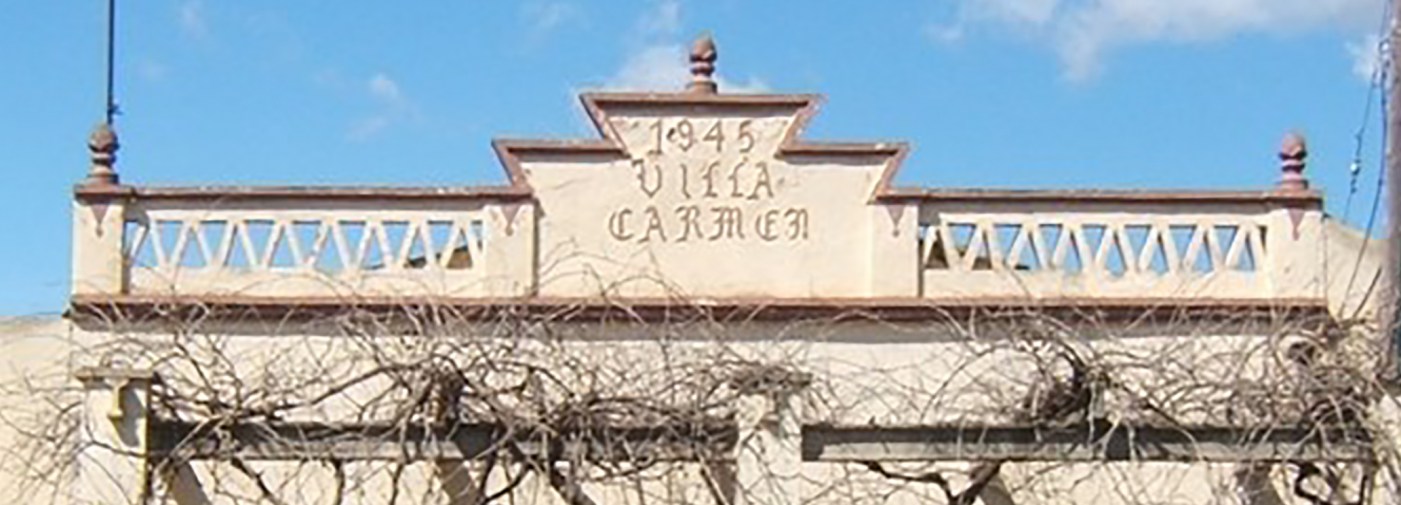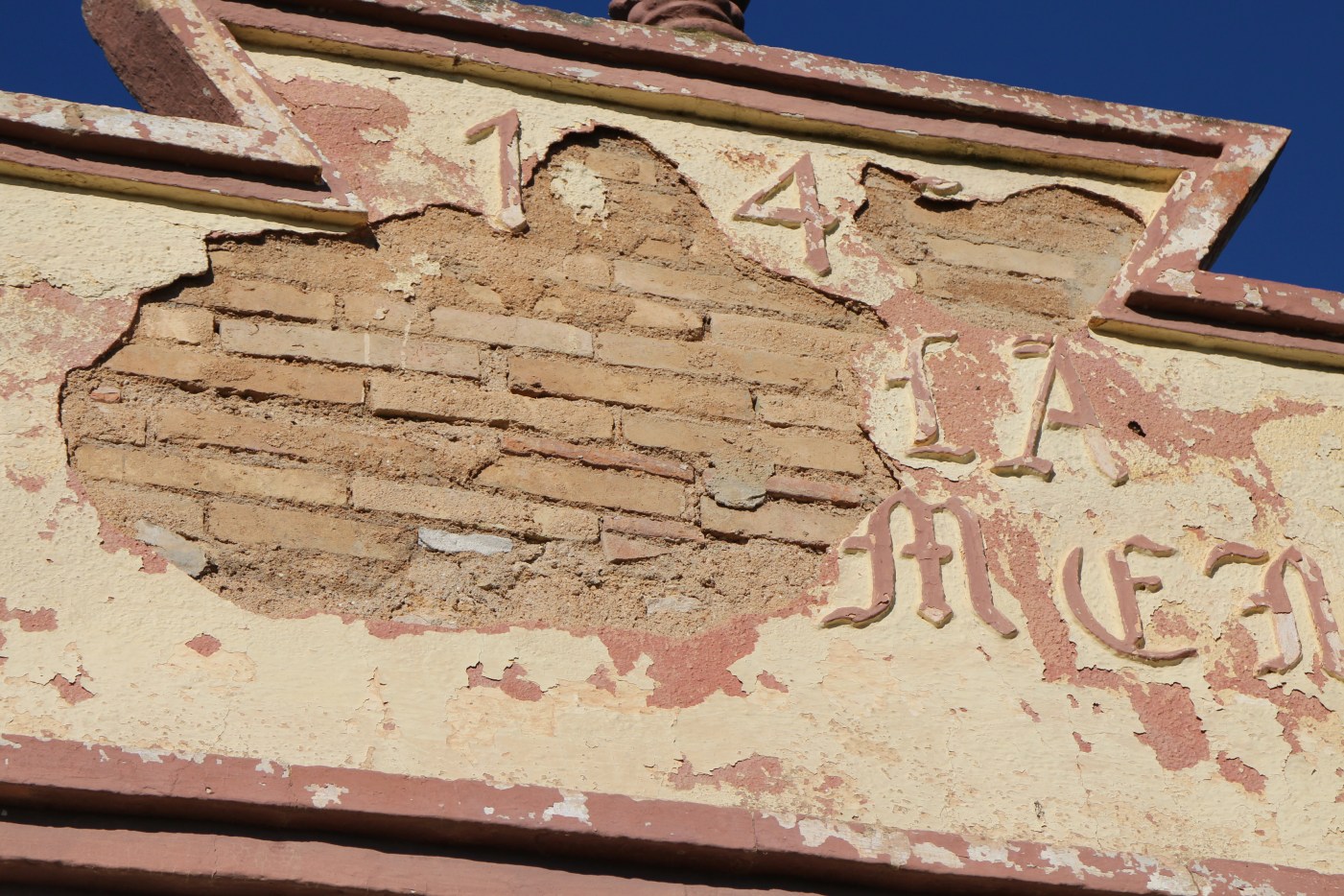
OLD HOUSE LETTERING
Hi, I need to restore the sign on the front of an old house in south Spain. The house was built in 1945, and the name of the house is VILLA CARMEN. The image attached comes from an old picture, but the sign is now destroyed. To redo the lettering, I would need to find the name of the font, or the closest one to it.
It was done with a mould, as it has volume. This image is what it looks like now. I'm guessing they used a blackletter of some sort as inspiration to make the moulds. In the south of Spain, in 1945, after a Civil War, I'm pretty sure they were not creating new fonts, but using something already existing.
However, if you can’t use the help of some experienced letterer, there have been (and still there are) numerous attempts to “latinise” blackletter and make it work in an all caps setting, from which you could take some inspiration.
Unfortunately, they tend to be much too ornate to be carved in plaster. I’m not qualified to suggest how much you can omit still preserving the integrity of the letters.
The less ornate designs I found tend to be more recent and seem to diverge in terms of shape of the letters (see, for example, Enzian, Lucida Blackletter, etc.).
Which would be the skill of a sign painter or pre-made architectural lettering, not letters made to be printed in books. Hence Ralf’s comments about poor execution and the need of someone with experience.
Correct. They didn’t need a font. They only needed the specific letters and figures and so they created just these letters and figures for this one use. That’s called “lettering”. And that’s how this type of signage was almost always done back in the days. And I am absolutely certain in this specific case, since such poor letter drawings would not have been sold as font anyway.
Alternatively - as a homage to the year the house was built - I was thinking that maybe I could use a font that was created in 1945, or around that time. Do you have any suggestions? It doesn't need to be blackletter. I actually like Sans Serif fonts more than ornamented... So any suggestions are really welcome.